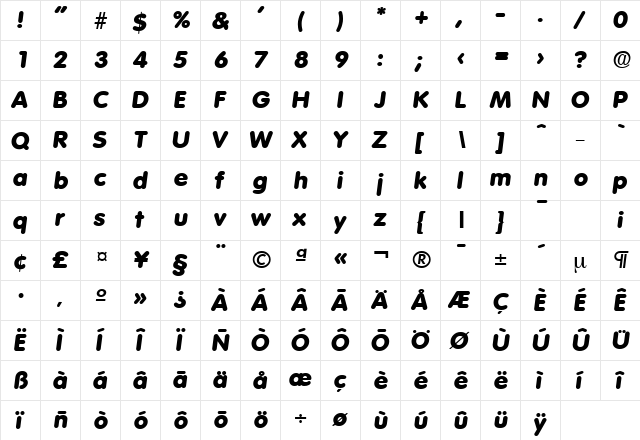
Volkswagen-Serial-Heavy RegularItalic
Design Context for Volkswagen-Serial-Heavy Typeface
Volkswagen-Serial-Heavy offers clean, dependable letterforms without strong stylistic allegiance, making it a practical choice for designers who need flexibility. Its italic angle brings a sense of urgency and motion to the letterforms.